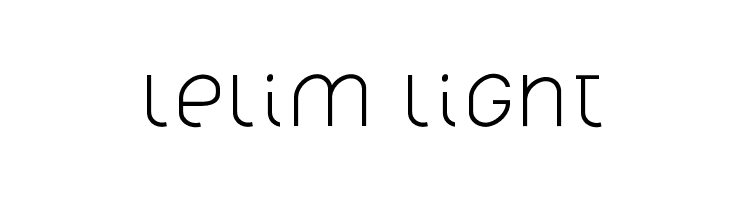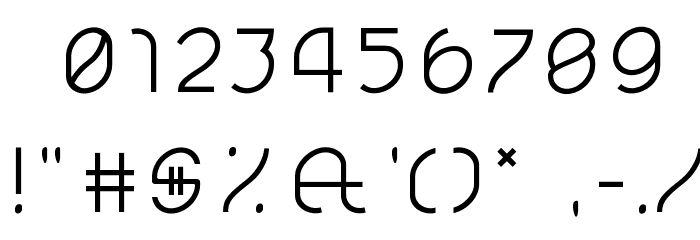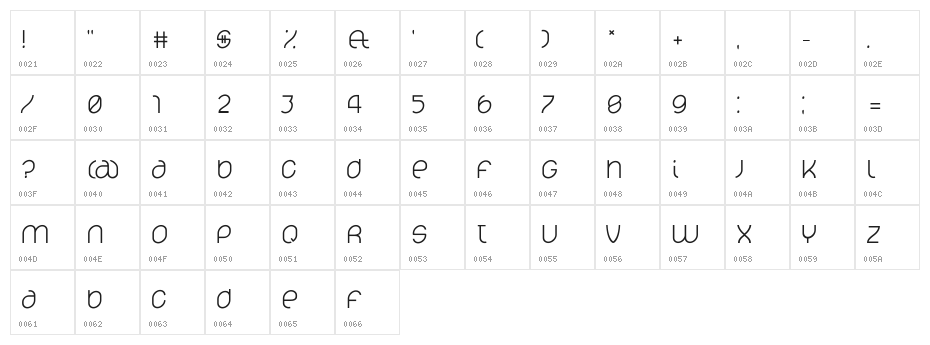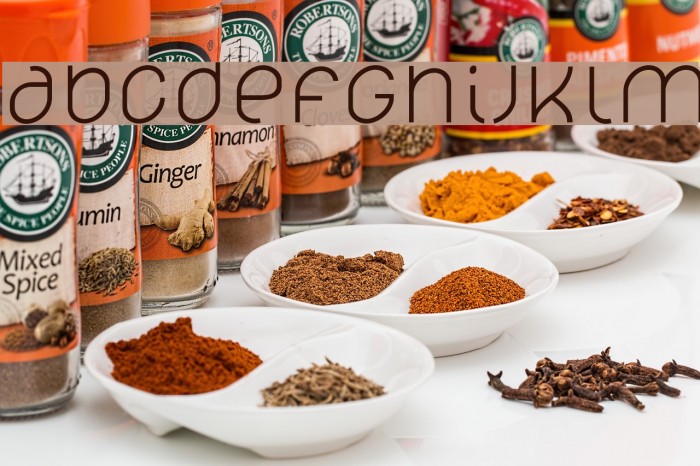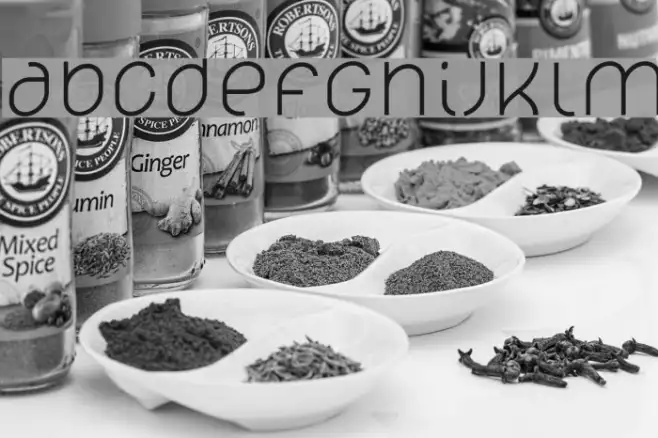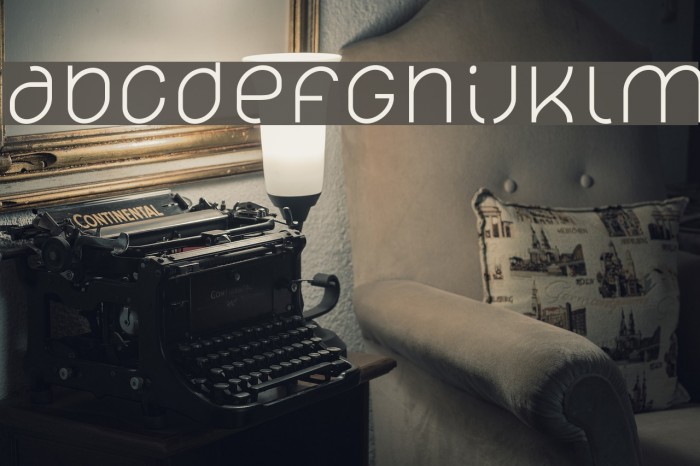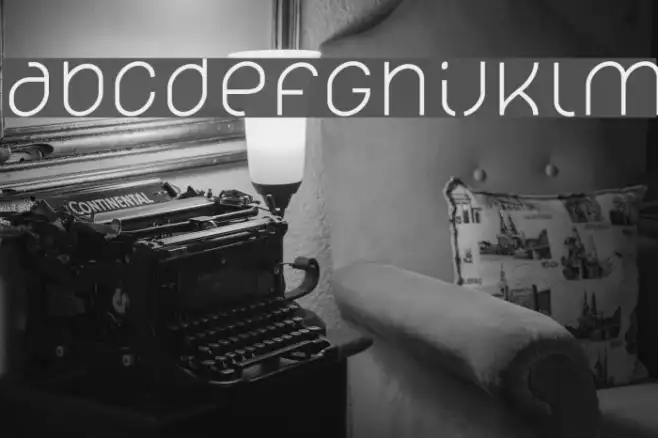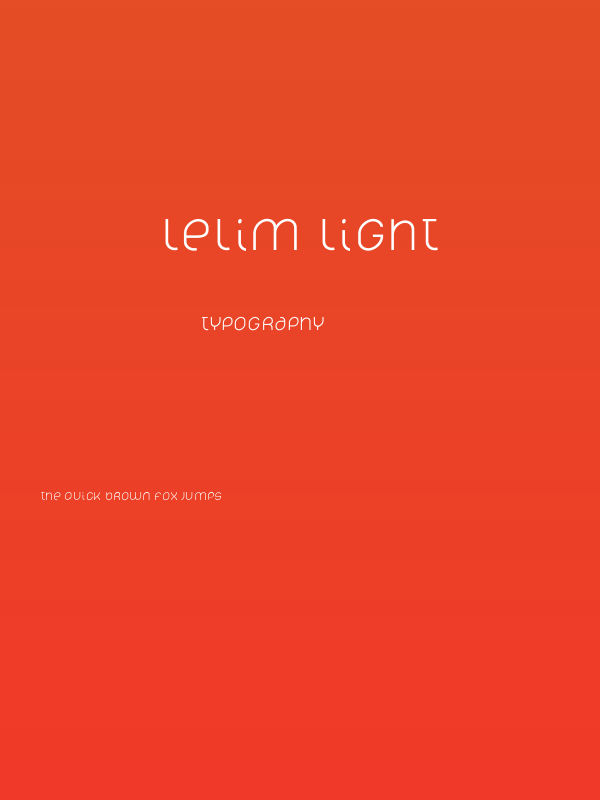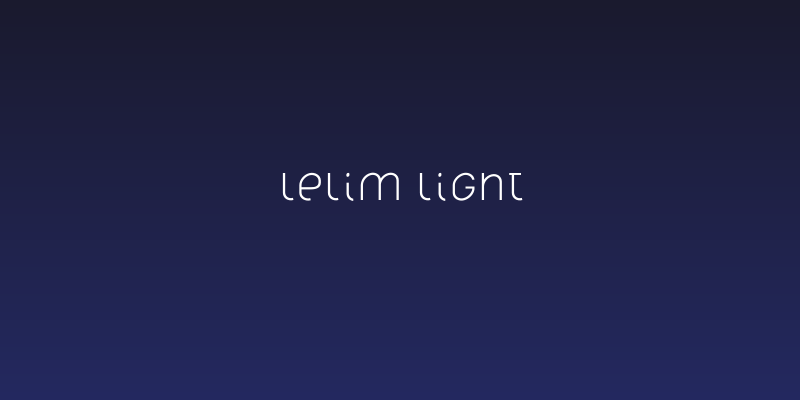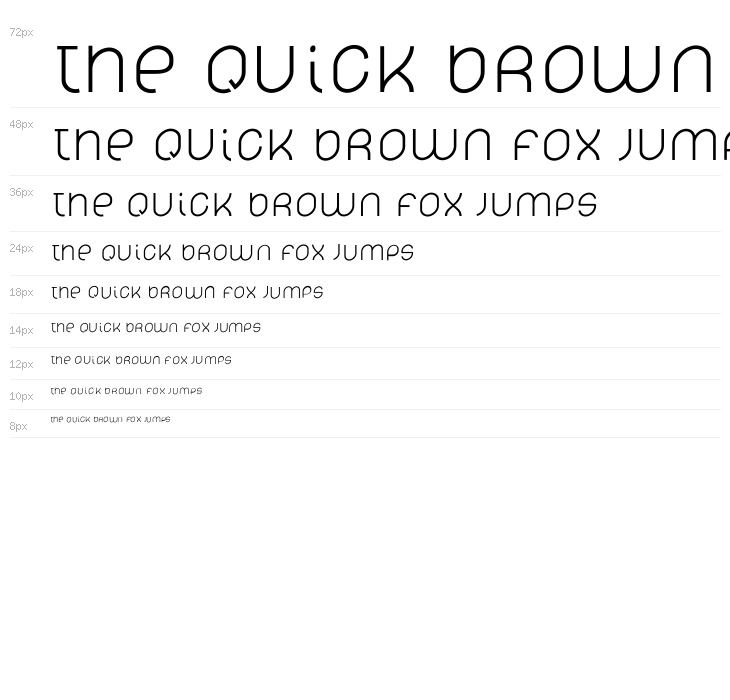
lelim Light Font
lelim Light Description
This font features a clean and modern design with a geometric structure. The characters are rounded and have a consistent stroke width, giving it a uniform appearance. The uppercase and lowercase letters share similar characteristics, maintaining a harmonious look. The numerals are distinct and easy to read, while the special characters are designed to complement the overall style. The font's simplicity and clarity make it versatile for various design applications.
| Proposed Projects | Ideal for branding, web design, and editorial projects where a clean and modern aesthetic is desired. |